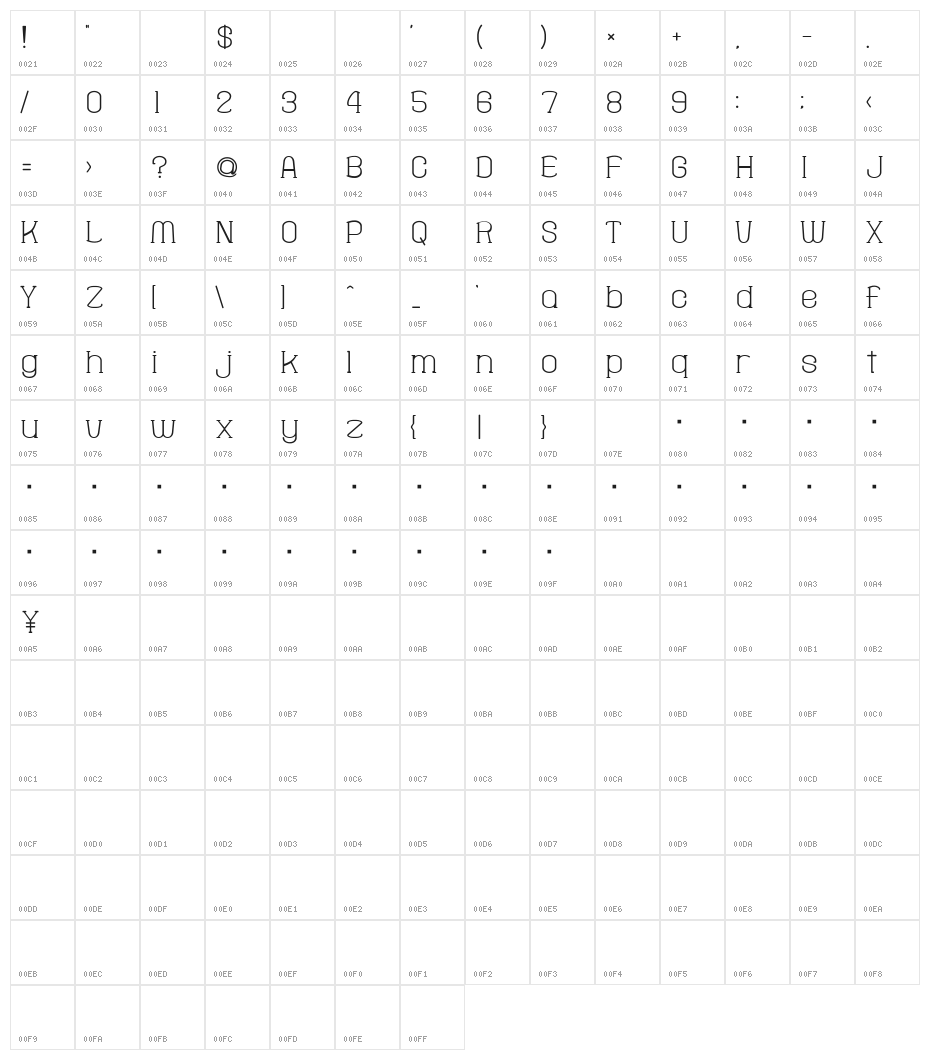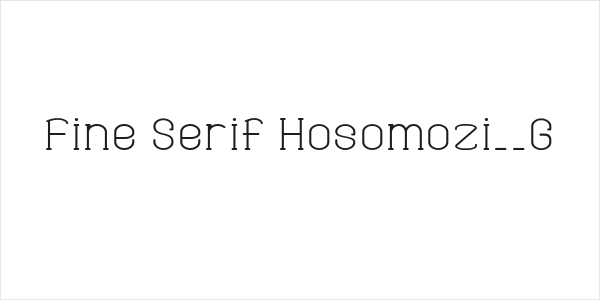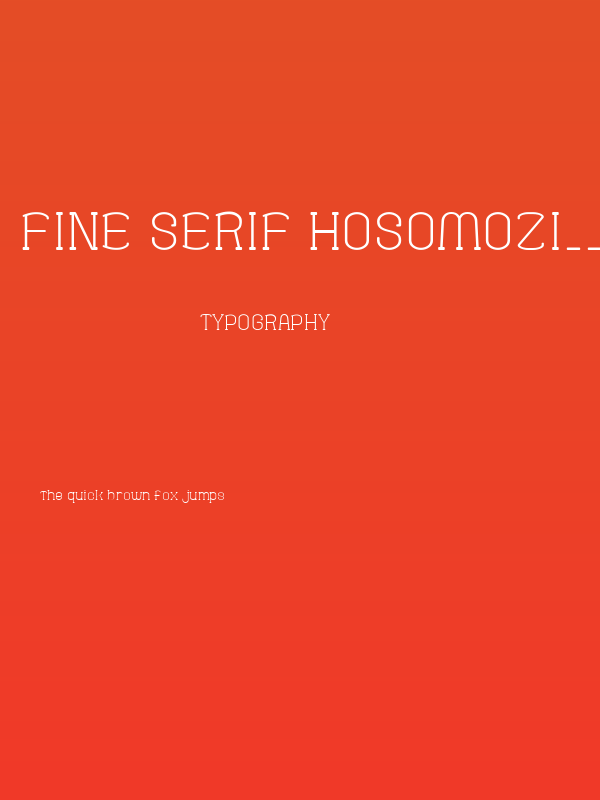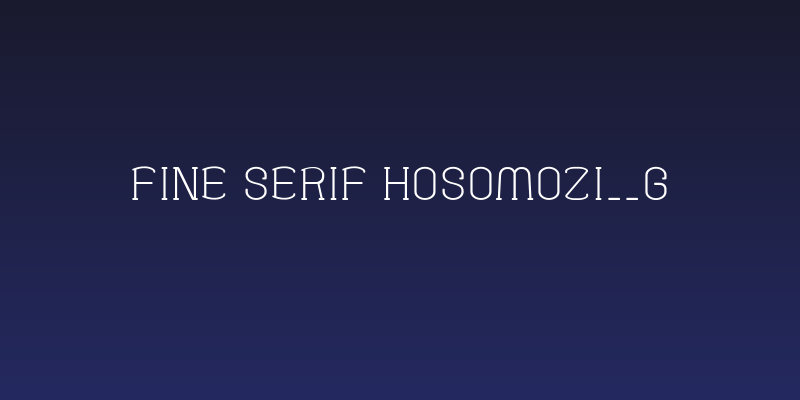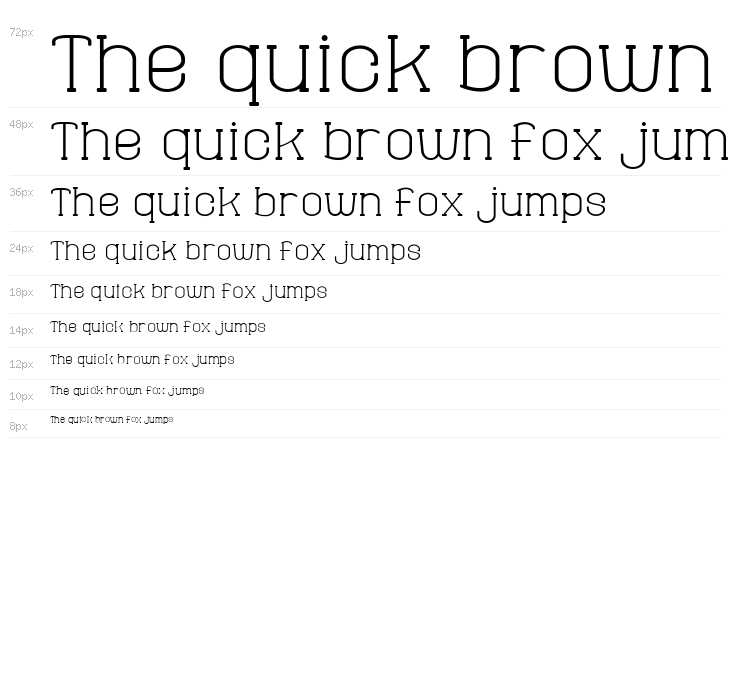
Fine Serif Hosomozi__G Font
Fine Serif Hosomozi__G Description
This font features a unique blend of modern and classic elements, characterized by its fine serifs and clean lines. The uppercase letters are slightly taller with a subtle elegance, while the lowercase letters maintain a consistent height, offering a harmonious balance. The numerals are distinct and easily readable, making them suitable for various applications. Special characters are designed with a minimalist approach, enhancing the overall aesthetic. The font's structure is both functional and stylish, making it versatile for different design needs.